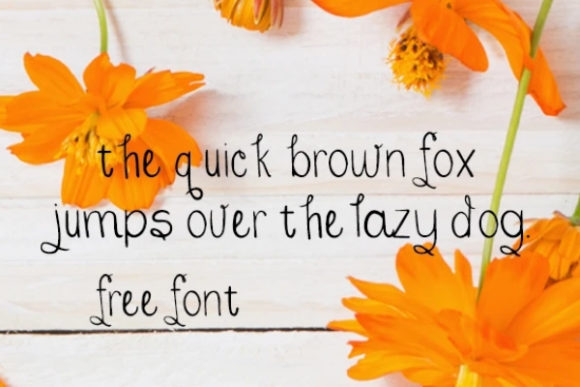
Discovering the Perfect Free Font
As designers, we’ve all been there – staring at a blank canvas, struggling to find the perfect font to bring our creative vision to life. It’s that moment when the right font can make all the difference, elevating our work from good to great. For many of us, the search for the perfect font can be a tedious and time-consuming process, especially when we’re working on a tight deadline.
That’s where the ‘Free Font’ comes in – a stunning handwritten font that embodies elegance and sophistication. With its classy calligraphic influences and fresh, contemporary feel, this versatile font is the perfect design resource for any creative project. Whether you’re working on a letterhead, title, or stationery, the ‘Free Font’ is sure to impress with its high-quality design and transparent background.
Introduction to Free Font
Key Features of Free Font
- High-Quality Design: Our Free Font offers a high-quality design that is perfect for any creative project, with a transparent background for seamless integration.
- Large Character Set: The Free Font features a large character set, including uppercase and lowercase letters, numbers, and special characters, making it ideal for a variety of creative projects.
- Easy to Use: The font is easy to use, with a clean and simple design that is perfect for anyone looking to add a touch of elegance to their work.
Honest Review: Free Font
I recently came across the “Free Font” and I have to say, it’s been a game-changer for my creative projects. As a designer, I’m always on the lookout for high-quality design resources that won’t break the bank, and this font delivers.
What works well: ✨ The font is super versatile and can be used for a wide range of creative projects, from logos to brochures. The transparent background makes it easy to overlay on any image or design. The font is also incredibly easy to customize, which is a huge plus. The free download option is also a major plus, as it saves me time and money.
- Easy to customize
Free Font: Unlocking Design Possibilities
Free Font can also be used in Adobe Photoshop and Illustrator. To do this, download the font file and install it on your computer. Then, open your design project and select the font from the font menu. You can adjust the font size, color, and style to match your design. Be sure to use a transparent background to ensure your design looks professional.
Free Font can also be used in PowerPoint and Word. To do this, download the font file and install it on your computer. Then, open your document or presentation and select the font from the font menu. You can adjust the font size, color, and style to match your design. Use a high-quality font to make your text stand out.
Tips for Getting the Most Out of Free Font
Choose a font that complements your design resource and style. Use a transparent background to ensure your design looks professional. Experiment with different font sizes and styles to add visual interest. Use Free Font for your creative project to add a personal touch.
Free Font is perfect for a wide range of design projects, including business cards, brochures, and social media graphics. Use it for headings, text, and even logos to add a professional touch. With a high-quality Free Font, you can create stunning designs that will grab attention.